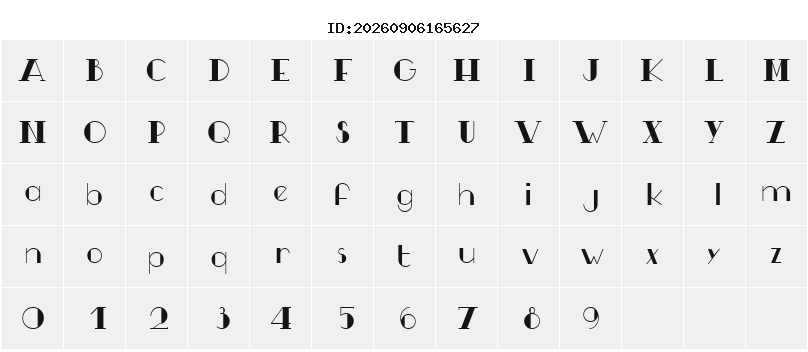
TSF et Compagnie Tryout.ttf is a modern, elegant sans-serif font designed for ultimate readability and visual harmony. Perfect for branding, headlines, web design, and print materials.